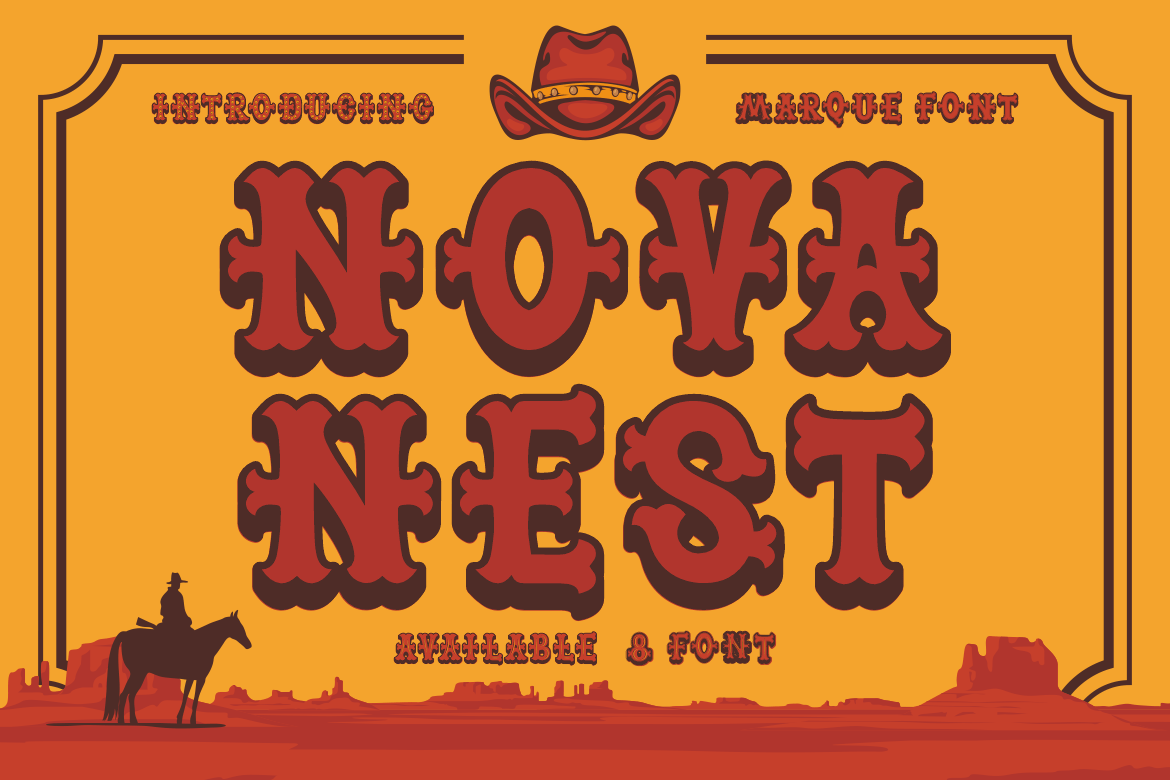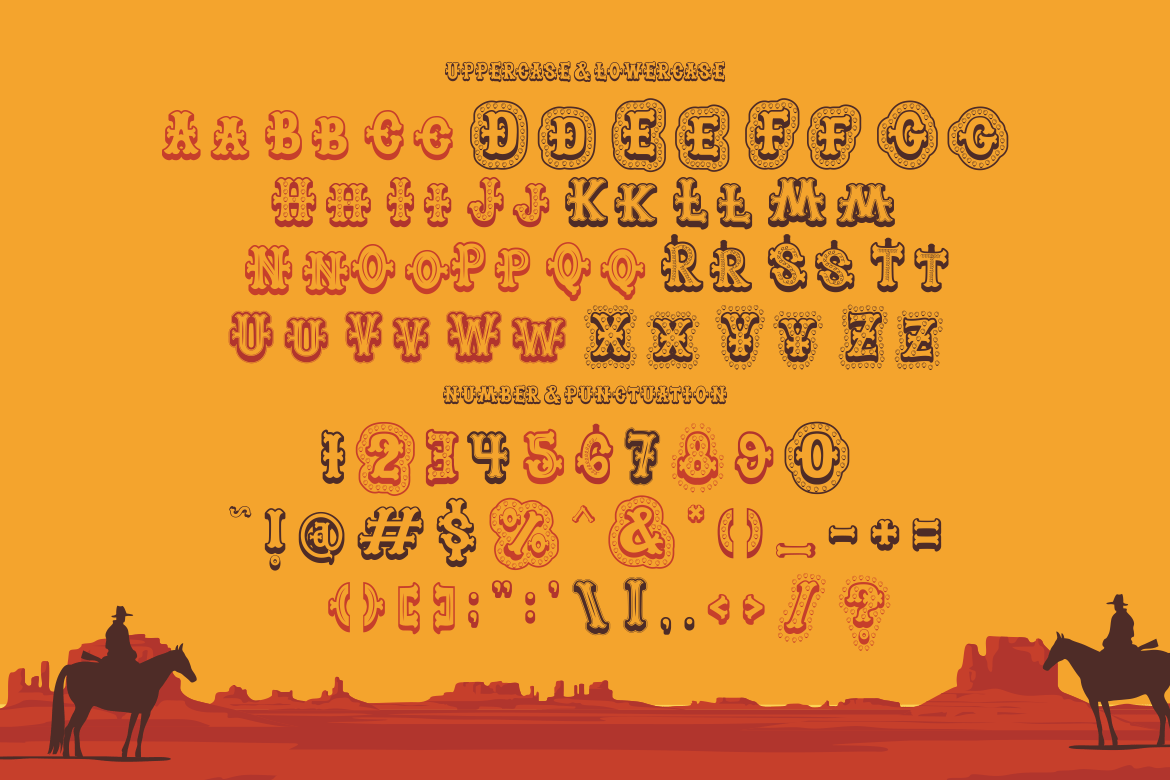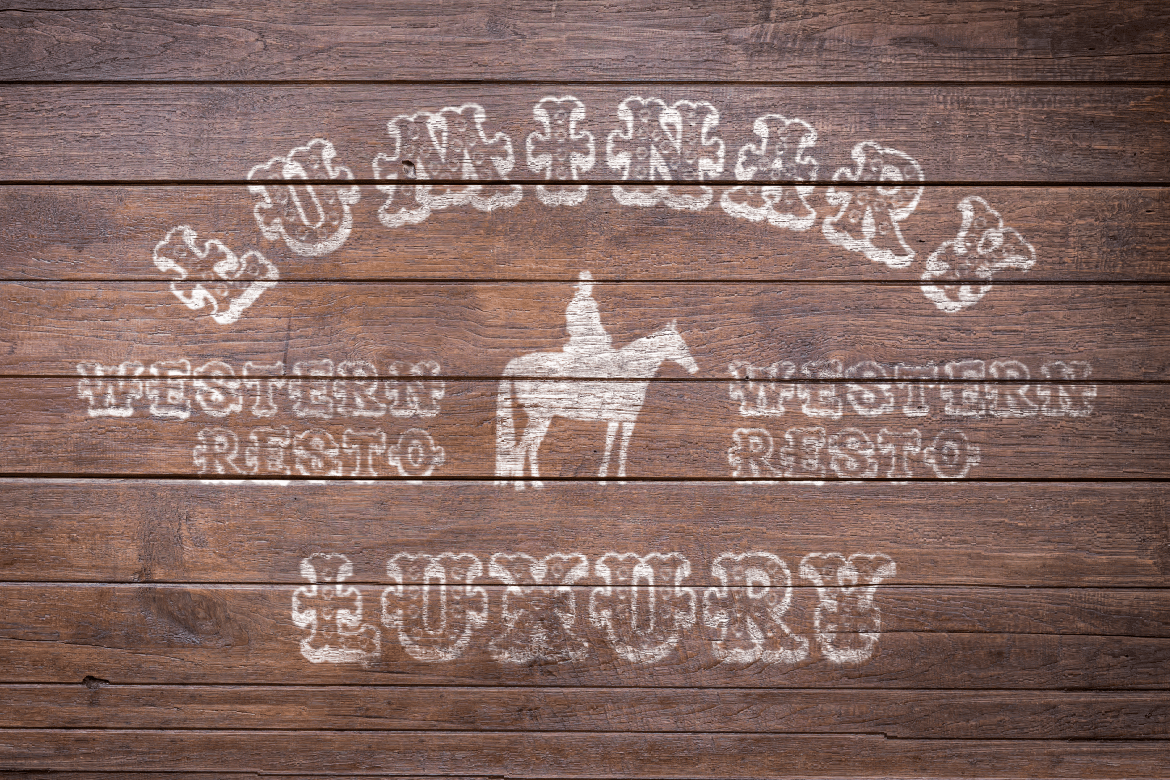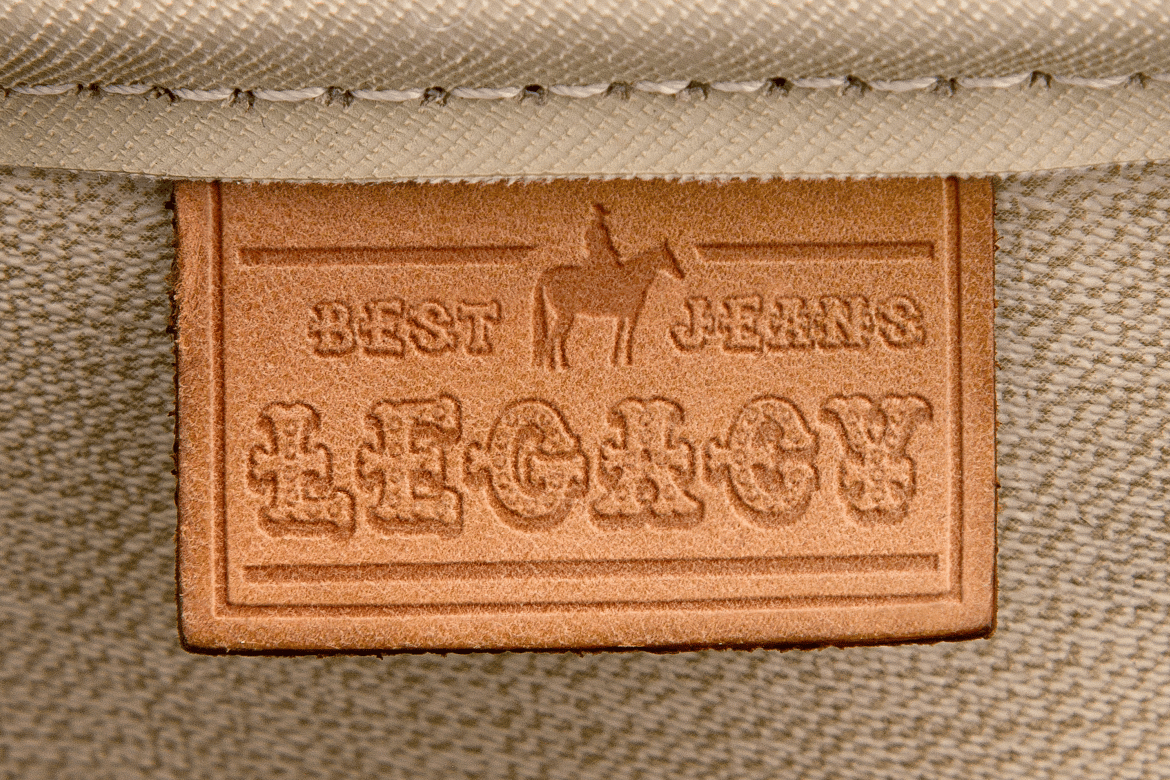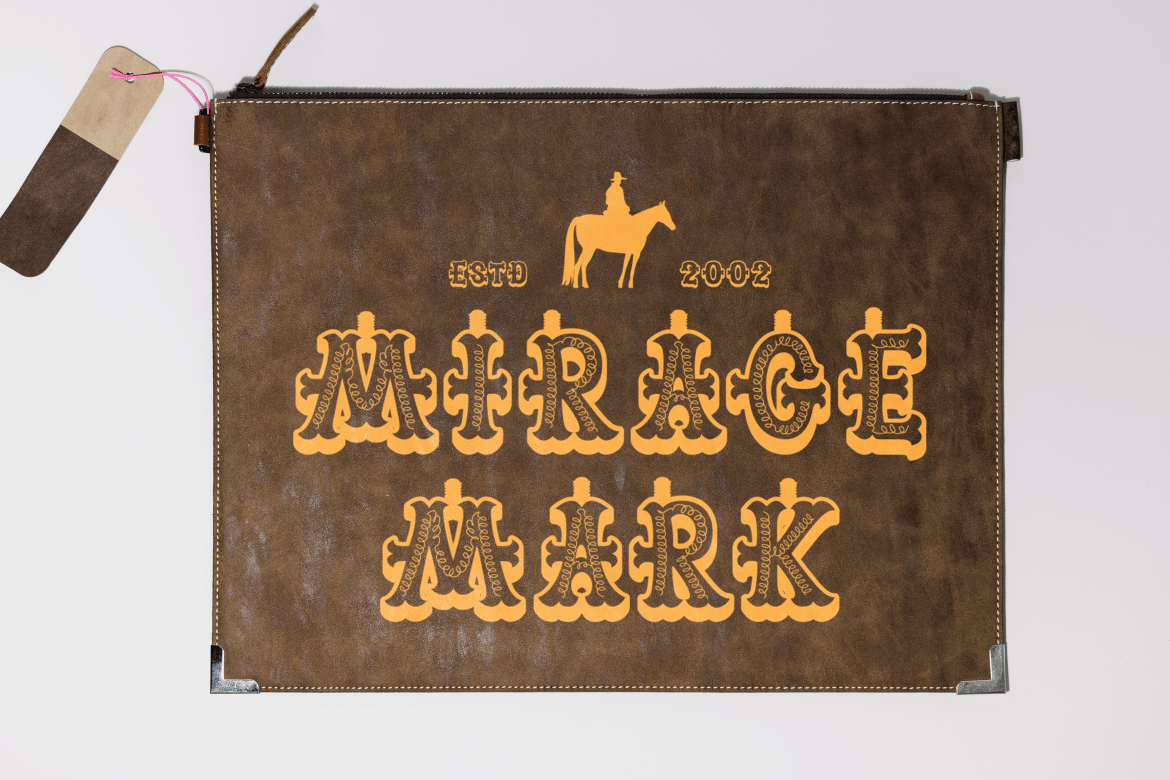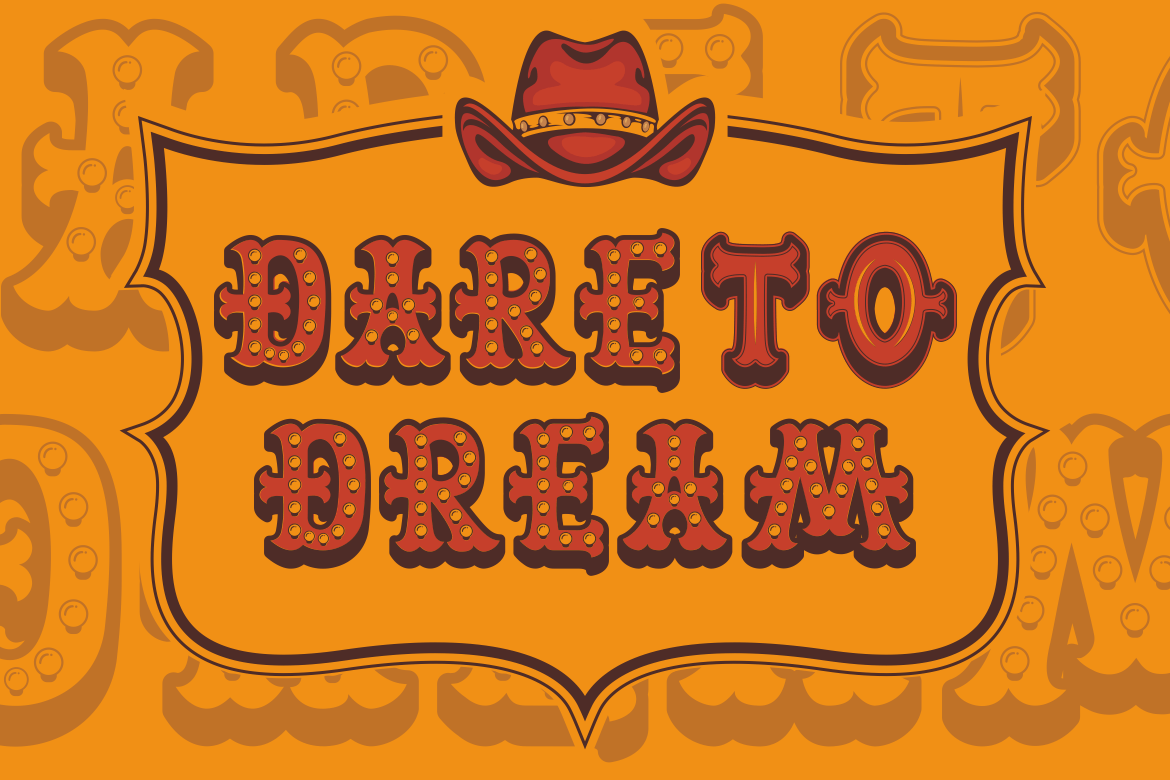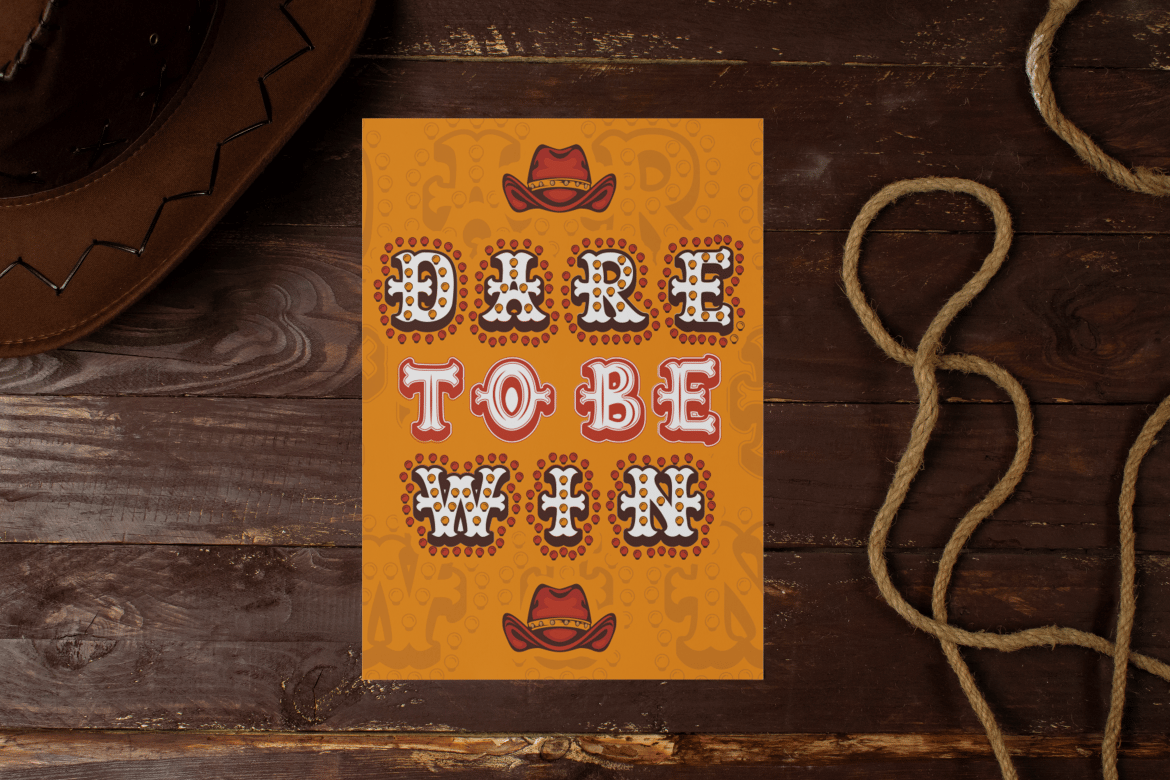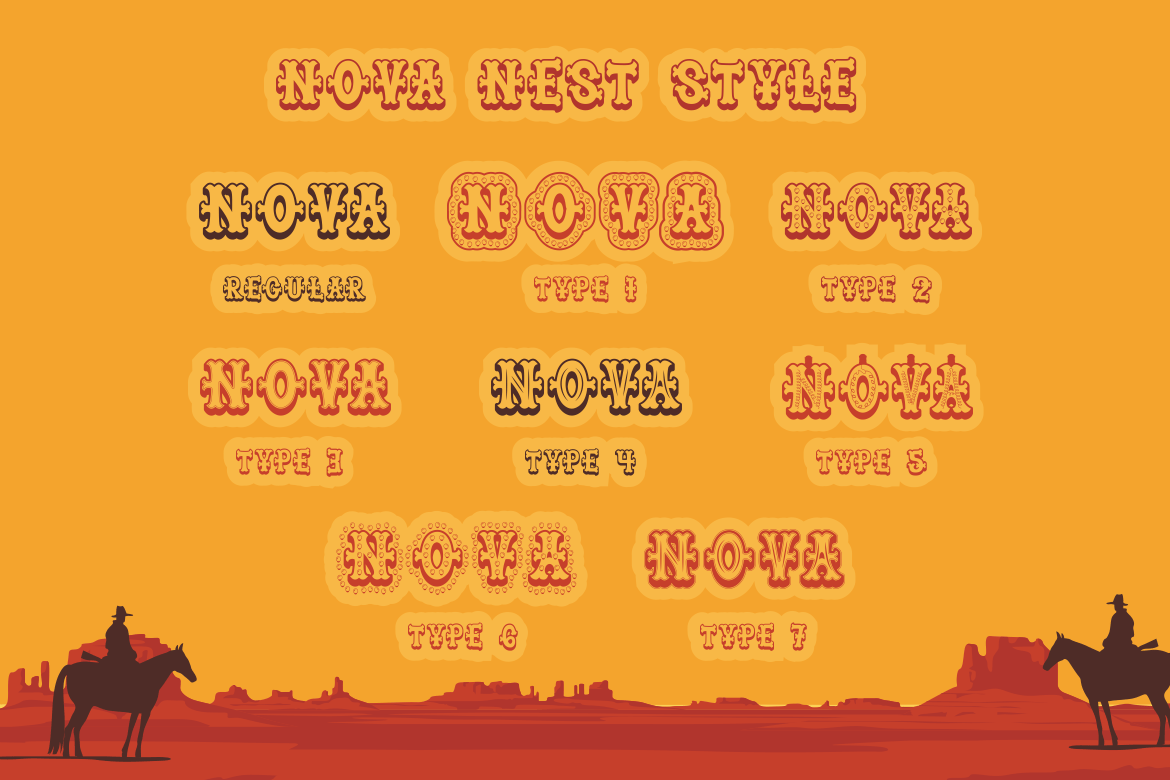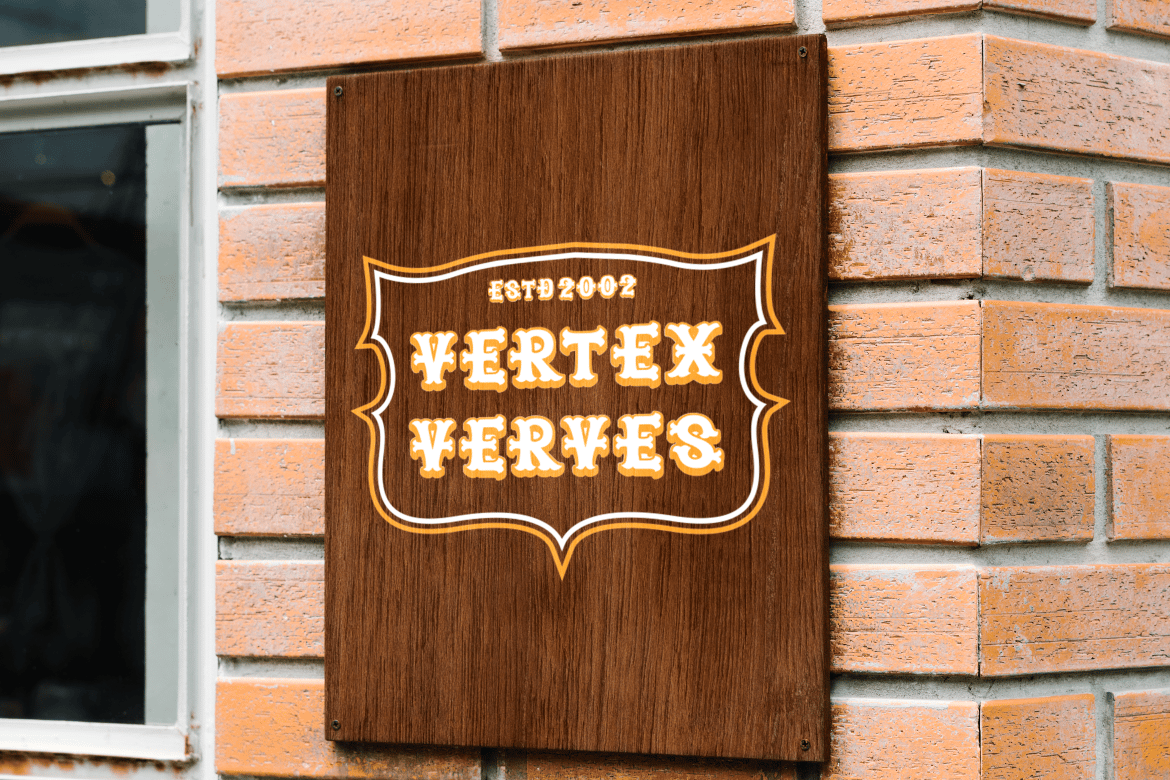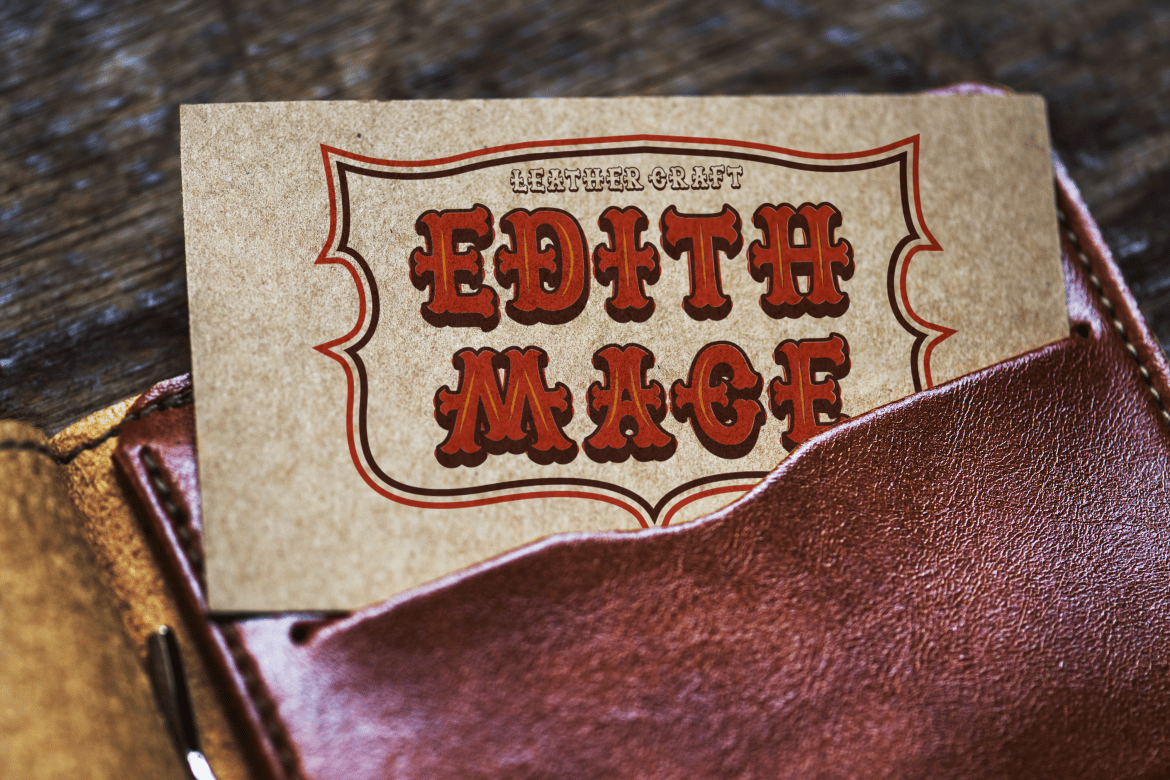
Nova Nest – Marque Font
Unleash the spirit of the Wild West with Nova Nest – Marque Font, a display font that’s as rugged and bold as the cowboys of yore. This font captures the essence of the western frontier, making it perfect for designs that need a touch of the old American spirit. With its distinctive marque style, Nova Nest stands out in any context, whether it’s branding a steakhouse, creating a wanted poster, or designing the cover of a western novel. Its sturdy characters and sharp serifs evoke the imagery of dusty trails and desert sunsets, ideal for anyone looking to add a bit of cowboy grit to their work.
Nova Nest is not just a font; it’s a narrative tool that transports your audience to the days of saloons and showdowns. It’s as versatile as it is striking, suitable for logos, branding, crafting, invitations, packaging, posters, titles, business cards, greeting cards, stickers, children’s books, magazines, and more. If your project calls for a font with a western vibe and an adventurous spirit, saddle up with Nova Nest – it’s sure to lasso in your audience with its authentic charm.